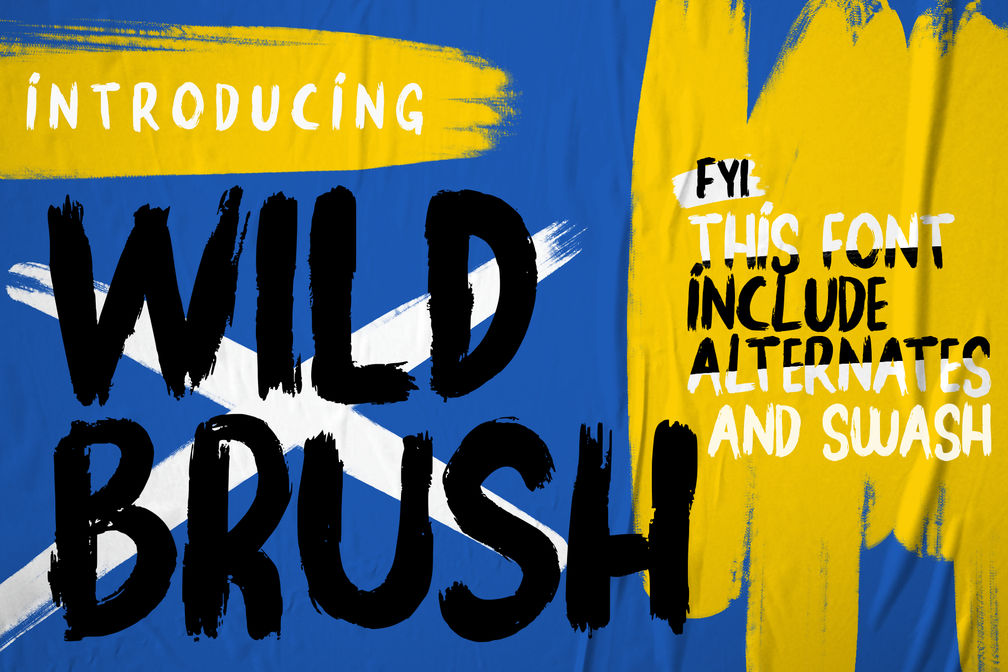
Wild Brush
Wild Brush is a brush font with unique characters. This font is created for product labels, logos, posters, websites and any design needs.
• Uppercase & Lowercase
• Numeral & Punctuation
• Alternates
• Multilingual Support